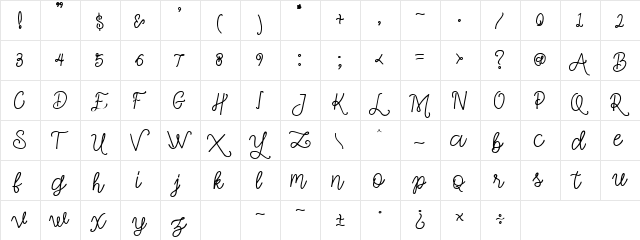
Simple Swirl Regular
Design Context for Simple Swirl Typeface
Simple Swirl is built around its visual character rather than neutral utility — its distinctive forms are designed to make an impression at display sizes.
Font Pairing: Pair with a clean neutral sans-serif for body copy to let Simple Swirl's character lead without overwhelming the composition.
Pro Tip: Treat Simple Swirl as the centrepiece of your typographic hierarchy. One strong heading set in a decorative face can carry an entire layout.